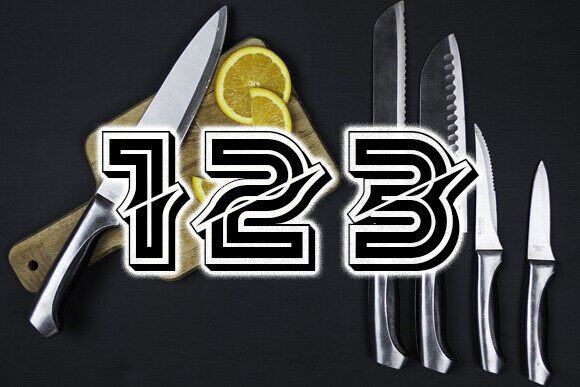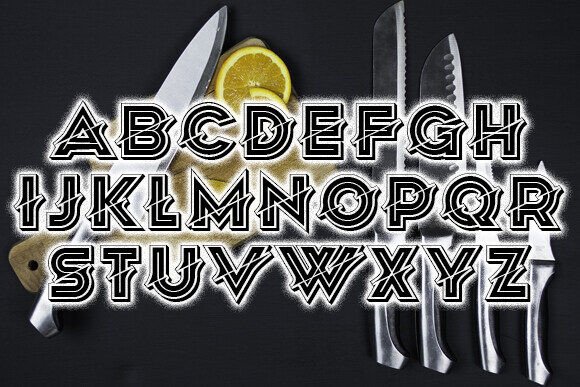
Buka Font: Elevate Your Designs with this Awesome Decorative Font
Are you a designer or crafter looking for a unique and eye-catching font to take your projects to the next level? Look no further than Buka Font! This stunning decorative font is perfect for adding a touch of personality and style to any design. In this article, we’ll explore the features and benefits of Buka Font, and show you how to use it to create amazing designs that will leave a lasting impression.
What is Buka Font?
Buka Font is a beautifully crafted decorative font that is designed to add a touch of elegance and sophistication to your designs. With its unique and intricate lettering style, Buka Font is perfect for creating stunning posters, flyers, quotes, branding, logos, and t-shirts. Whether you’re a professional designer or a crafty DIY enthusiast, Buka Font is sure to become a favorite in your font collection.
Key Features of Buka Font
- Unique and decorative lettering style: Buka Font features a one-of-a-kind lettering style that is sure to grab attention and add a touch of personality to your designs.
- High-quality and scalable: Buka Font is designed to be high-quality and scalable, making it perfect for use on a variety of mediums, from small business cards to large billboards.
- Multipurpose: Buka Font is perfect for a wide range of design projects, from posters and flyers to logos and t-shirts.
Benefits of Using Buka Font
So why should you choose Buka Font for your next design project? Here are just a few benefits of using this amazing decorative font:
- Add a touch of personality to your designs: Buka Font is the perfect way to add a unique and personal touch to your designs, setting them apart from the crowd.
- Elevate your brand: If you’re looking to create a strong brand identity, Buka Font is a great choice. Its elegant and sophisticated style is sure to make a lasting impression on your customers.
- Save time and effort: With Buka Font, you can create stunning designs in no time. Its easy-to-use format and high-quality lettering style make it easy to get the results you want.
Inspiration and Ideas for Using Buka Font
Need some inspiration for using Buka Font? Here are a few ideas to get you started:
- Create a stunning poster: Use Buka Font to create a eye-catching poster for a movie, event, or product launch.
- Design a beautiful logo: Use Buka Font to create a unique and memorable logo for a brand or business.
- Make a stylish t-shirt: Use Buka Font to create a stylish and eye-catching t-shirt design.
- Create a quote graphic: Use Buka Font to create a beautiful quote graphic for social media or a blog.
In conclusion, Buka Font is an amazing decorative font that is perfect for designers and crafters looking to add a touch of personality and style to their designs. With its unique and intricate lettering style, high-quality and scalable design, and ease of use, Buka Font is sure to become a favorite in your font collection. So why wait? Download Buka Font today and start creating stunning designs that will leave a lasting impression!